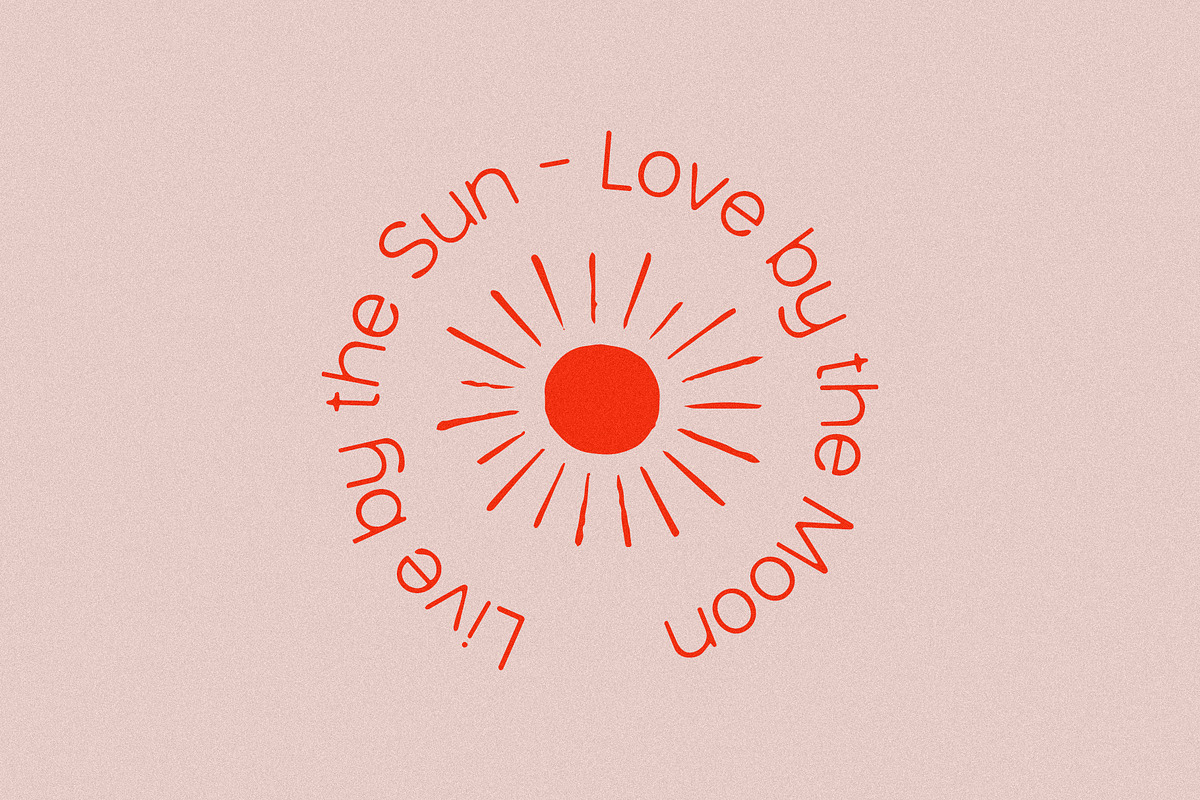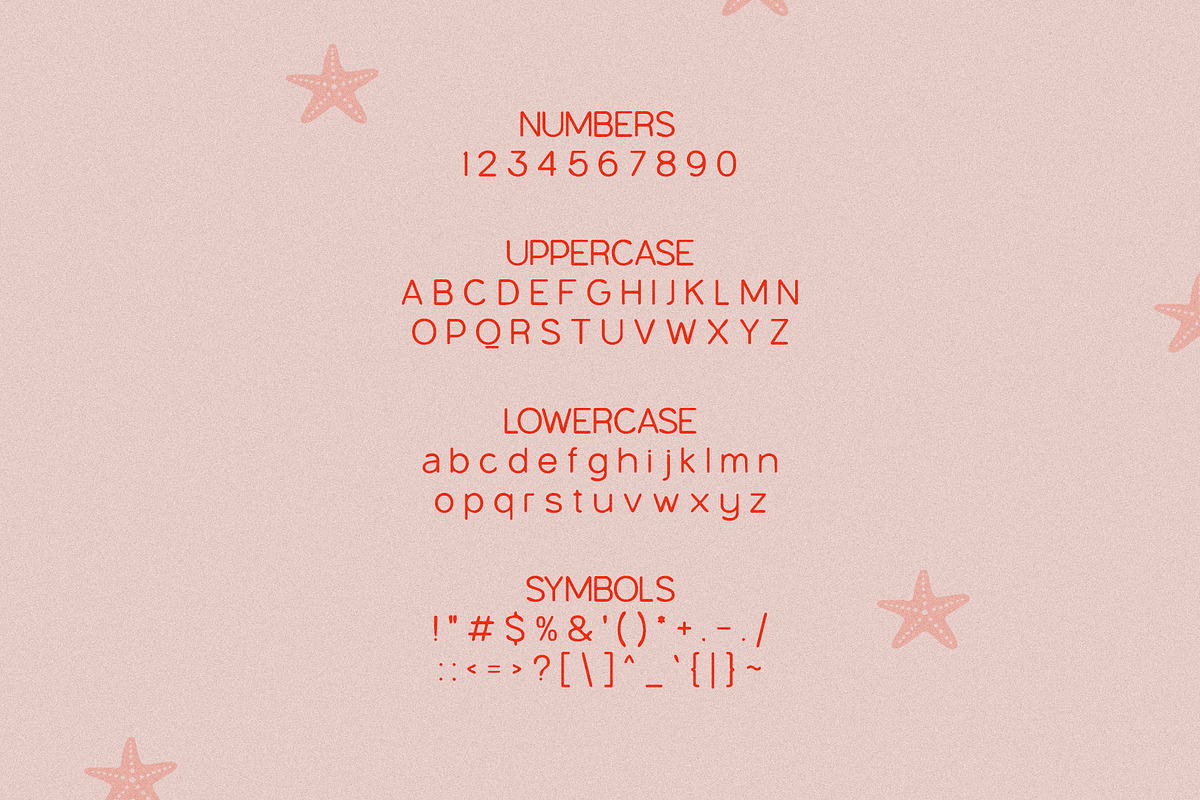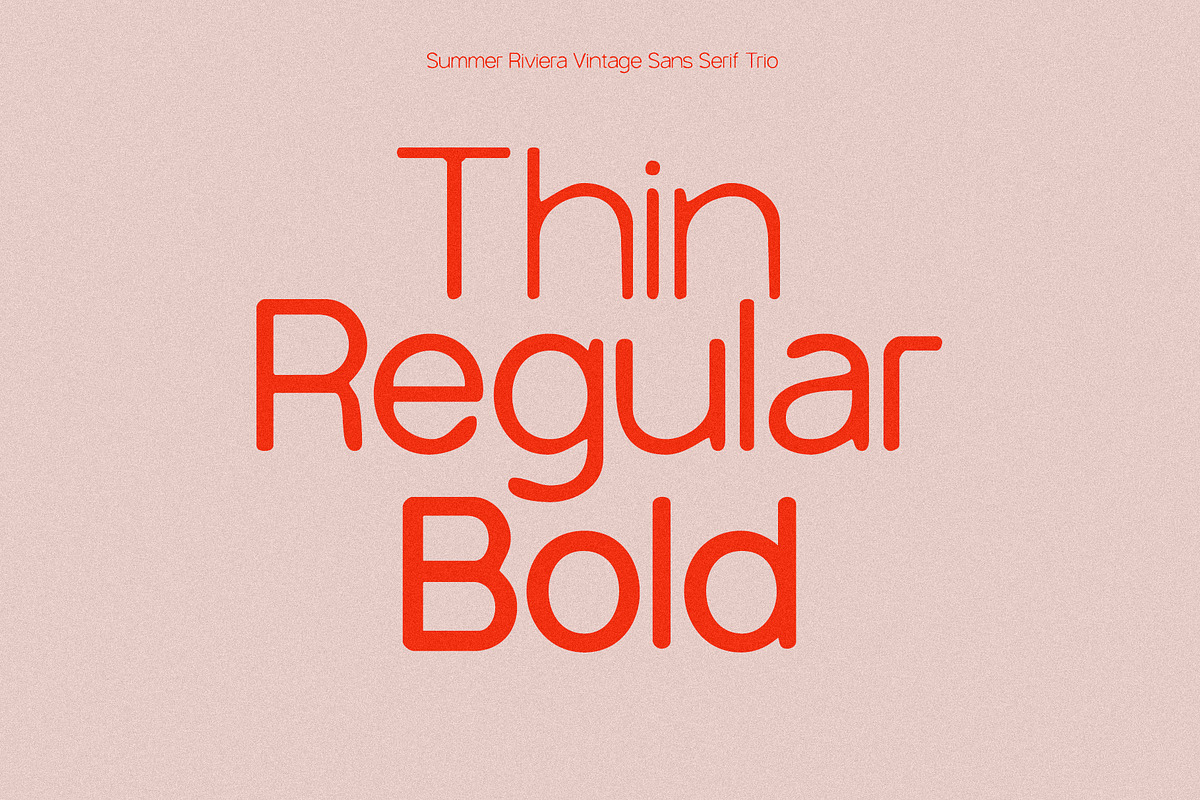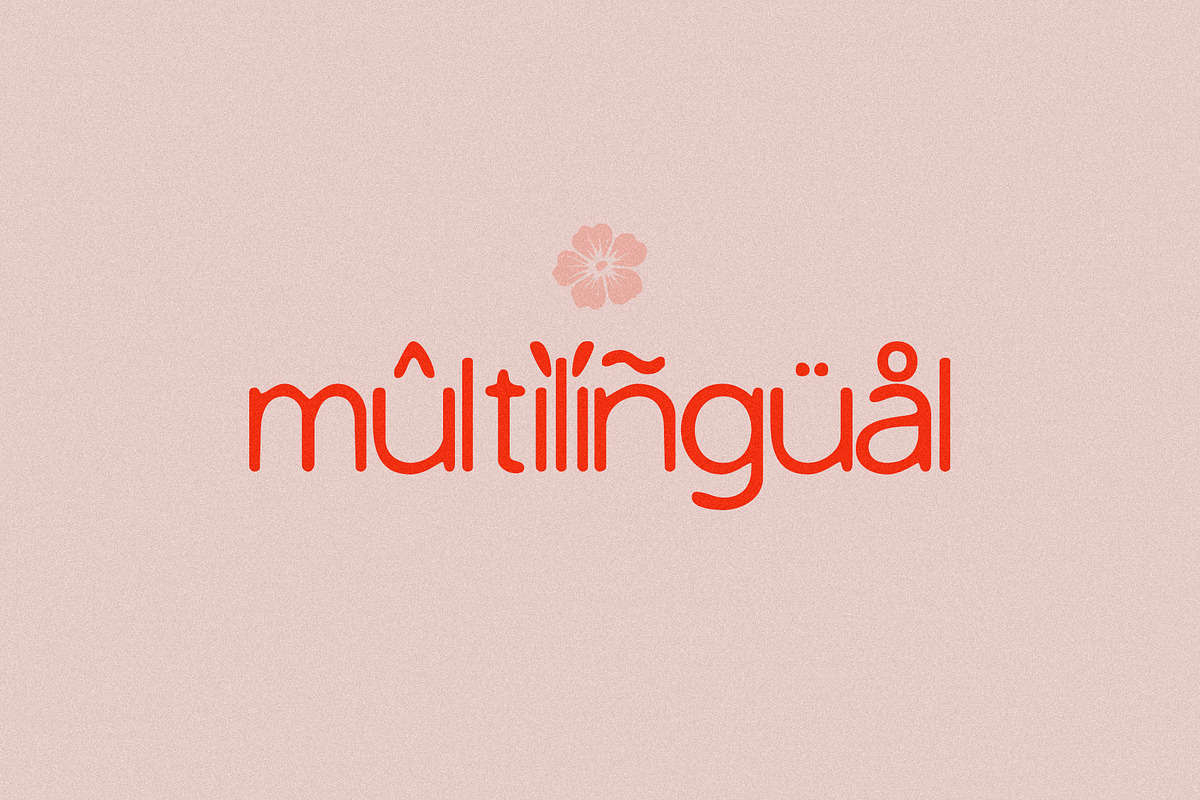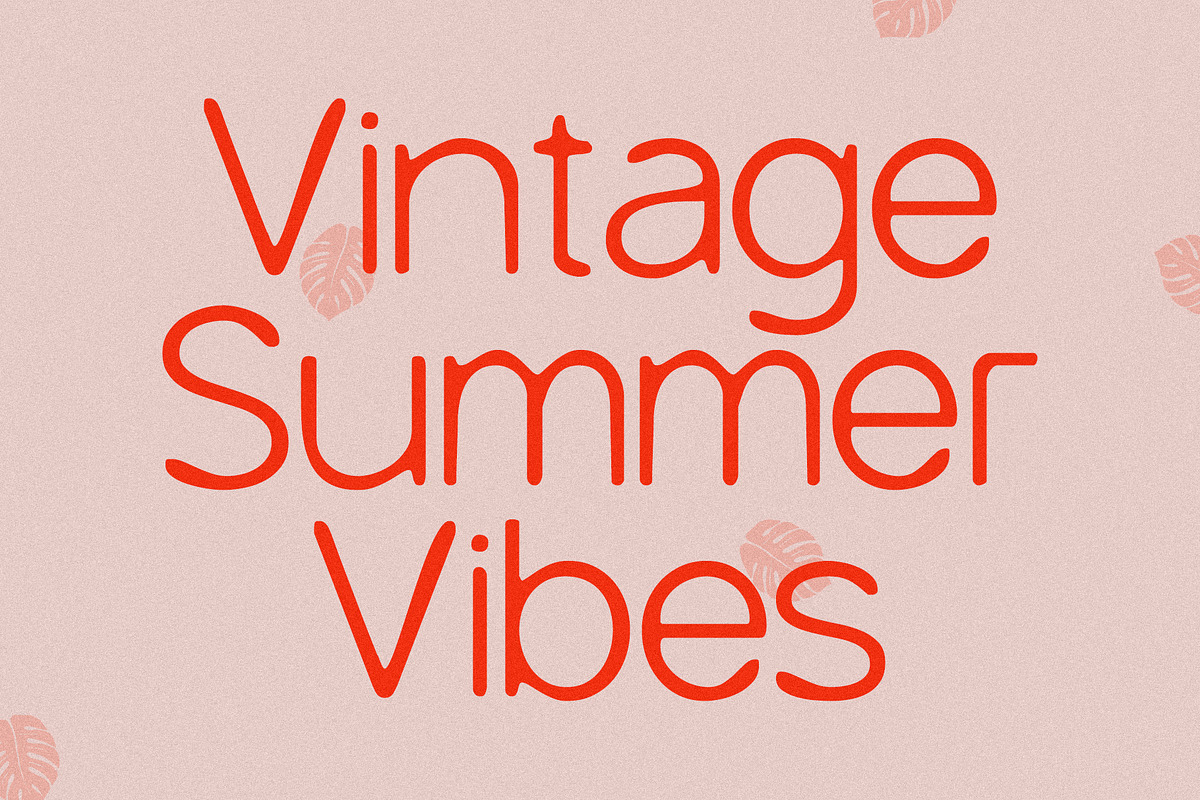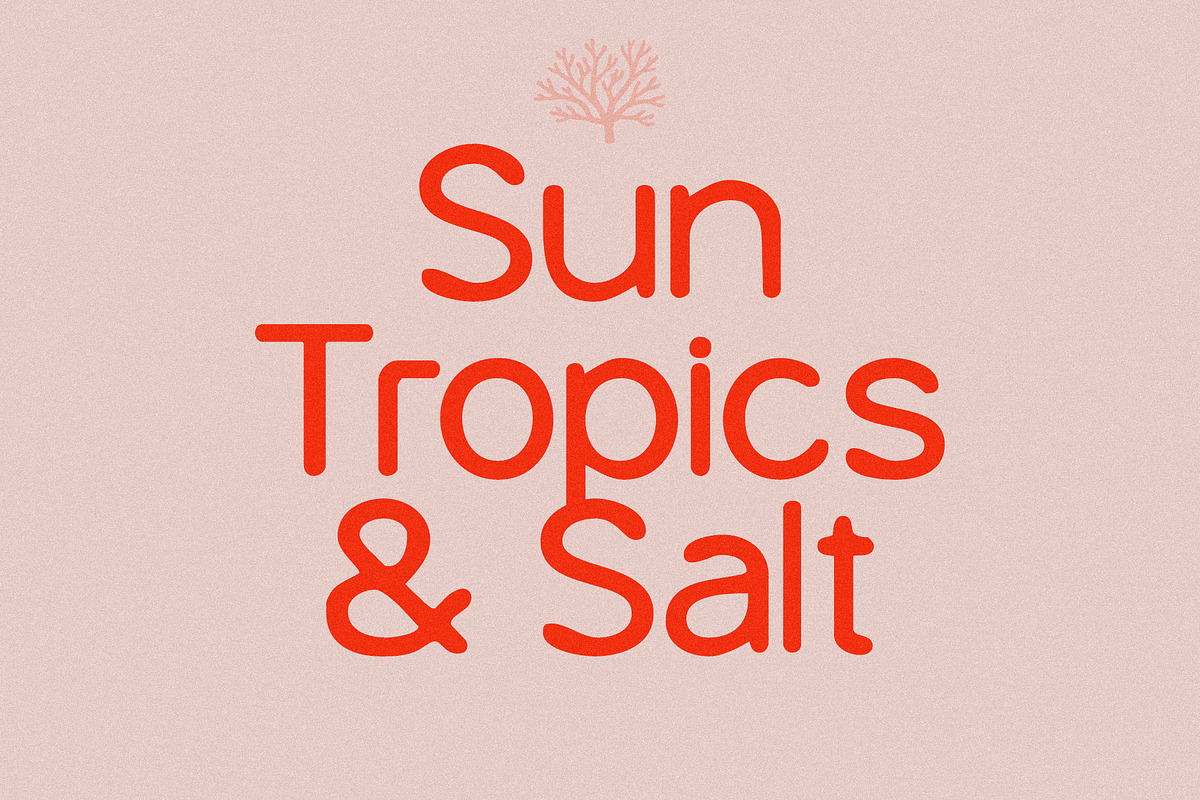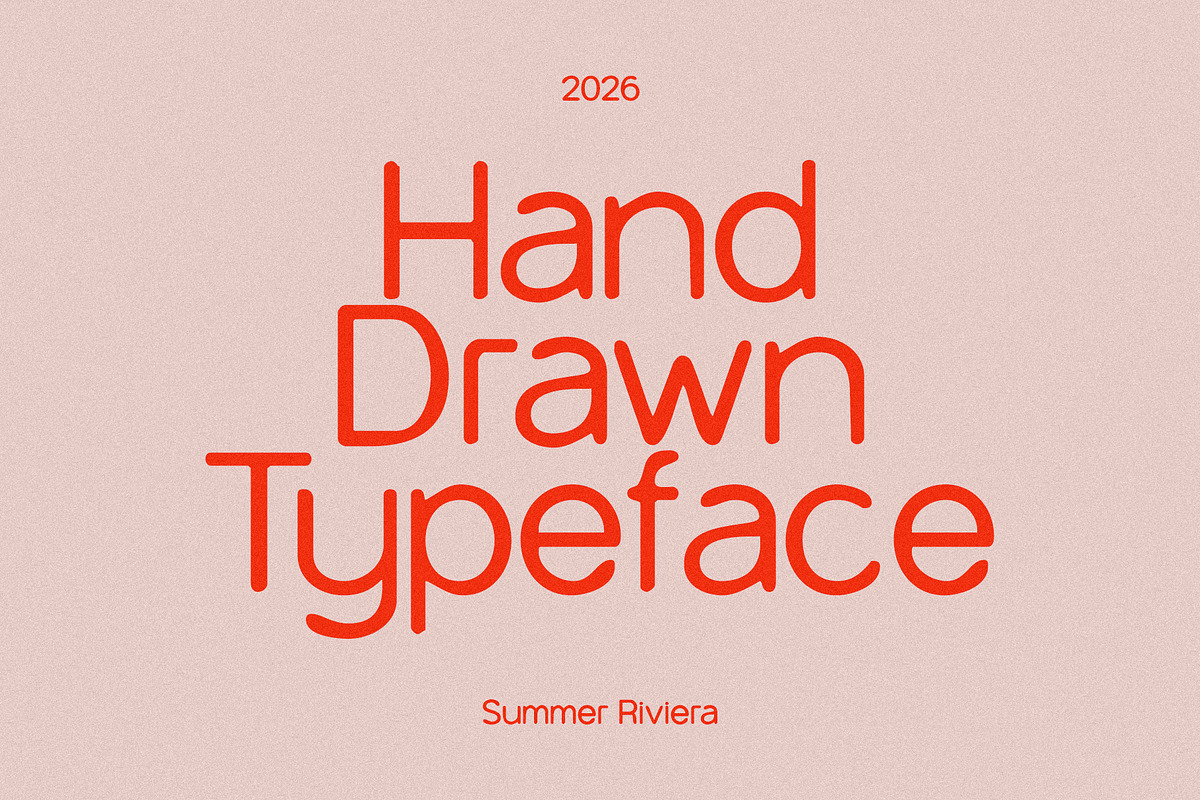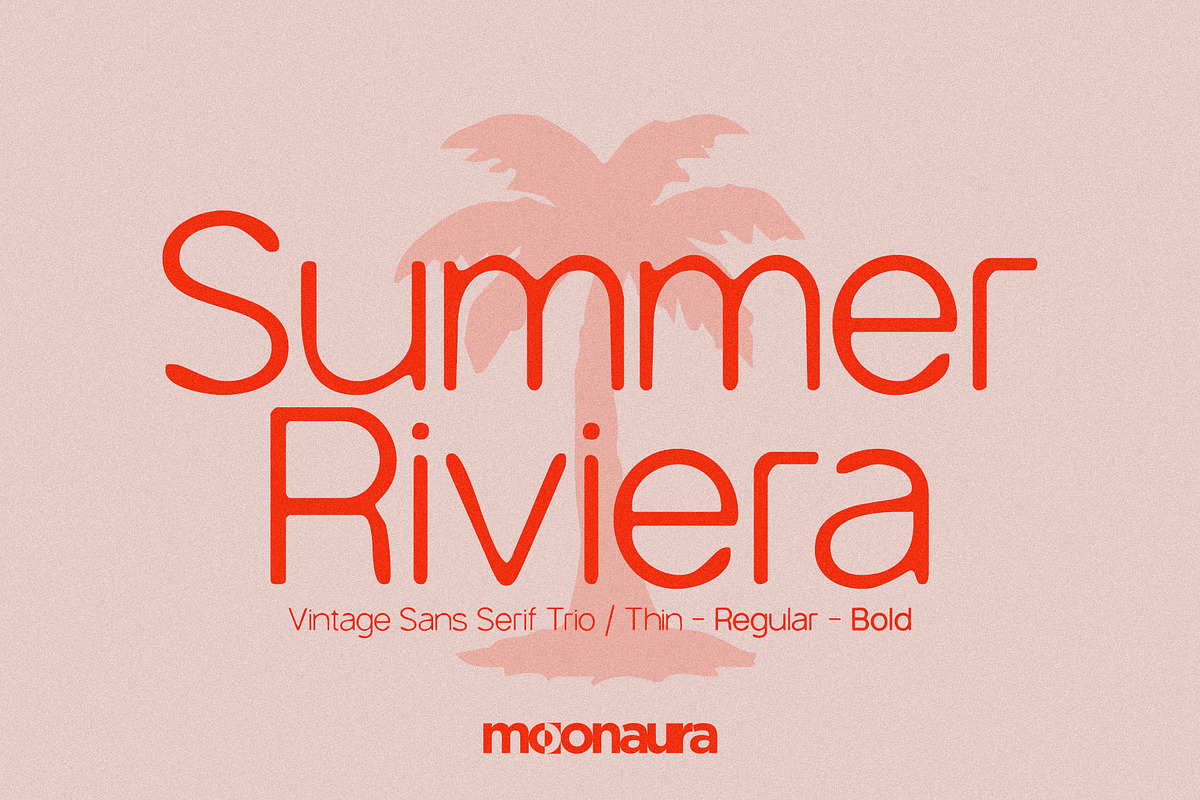
Summer Riviera Vintage Trio
Summer Riviera is a sun-soaked font trio inspired by coastal escapes, retro postcards, and slow summer afternoons by the sea. Designed to capture that effortless Riviera mood, this typeface blends nostalgic charm with modern simplicity - perfect for designs that feel warm, relaxed, and timeless. The family now comes in three versatile weights: Thin, Regular, and Bold, giving you the flexibility to create beautiful typographic contrast while keeping a consistent, elegant style across your projects.
Summer Riviera Thin adds a light, airy touch - ideal for refined layouts, minimal designs, and delicate headlines. Summer Riviera Regular offers balanced readability and a clean look, making it perfect for logos, branding, and everyday text. Summer Riviera Bold brings confident character and strong presence, perfect for standout titles, posters, and eye-catching designs.
Together, these three styles create a cohesive font system that works beautifully across branding, packaging, social media, editorial layouts, posters, and lifestyle designs.
Whether you're designing for a beach-inspired brand or creating visuals that capture the feeling of endless summer, Summer Riviera Font Trio delivers the perfect mix of elegance, warmth, and versatility.